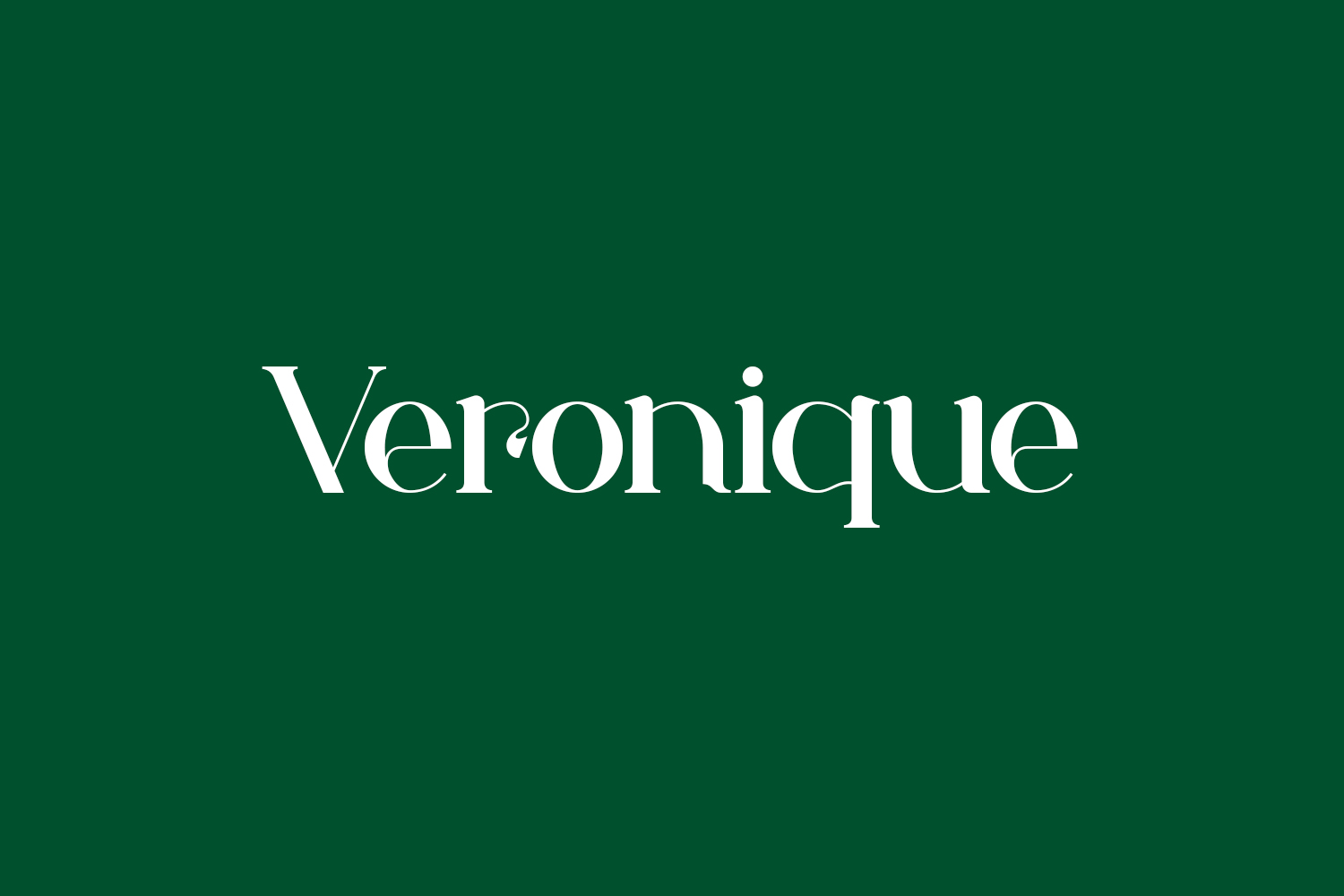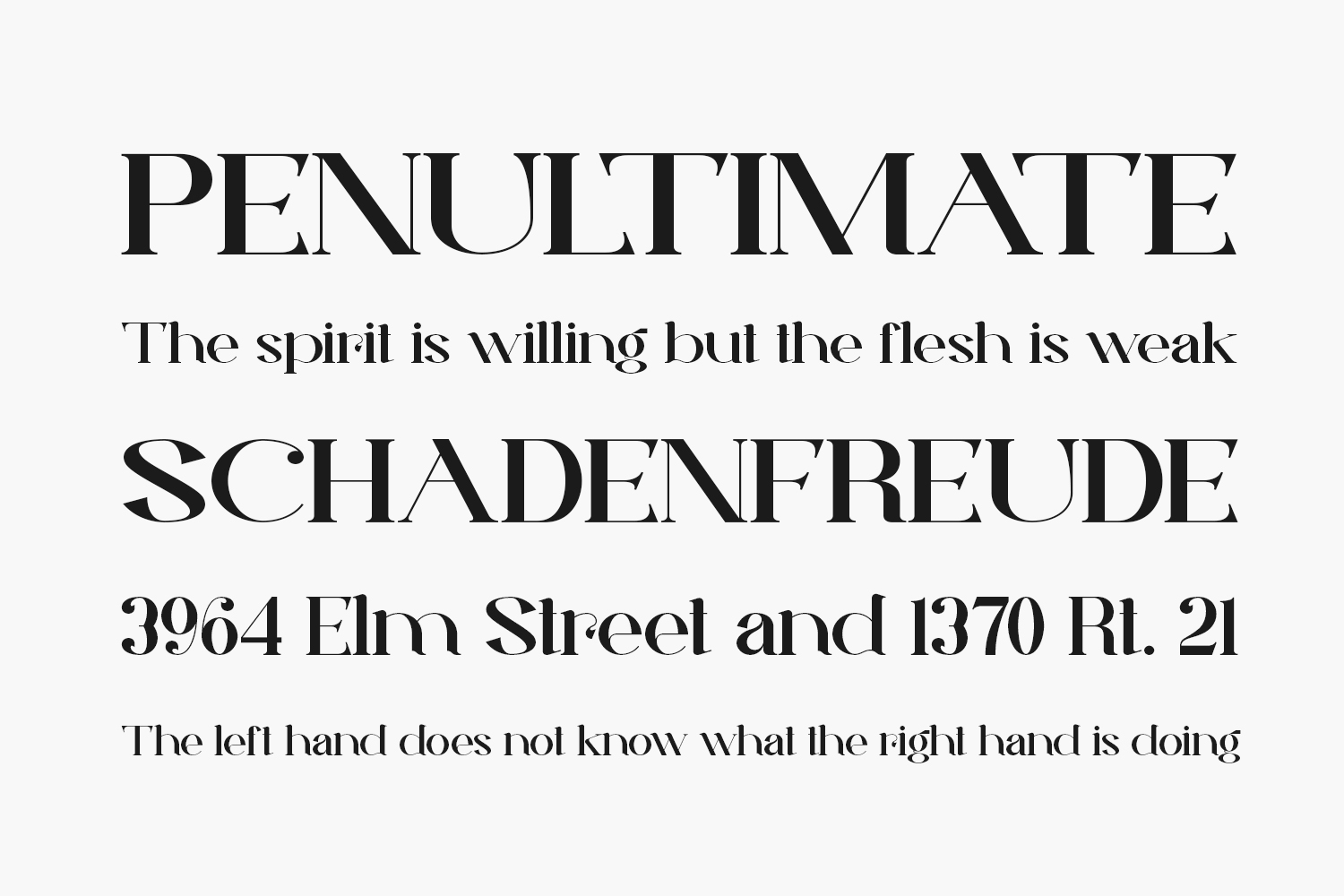
Veronique Free Font Family is a unique and sophisticated serif typeface that exudes a sense of refinement and elegance. Its sleek and slender serifs convey a sense of class and sophistication, while its unique details and nuances lend a touch of individuality and distinction. Using the Veronique font gives a feeling of confidence and timelessness, making it the perfect choice for any project seeking to convey a sense of luxury and exclusivity.